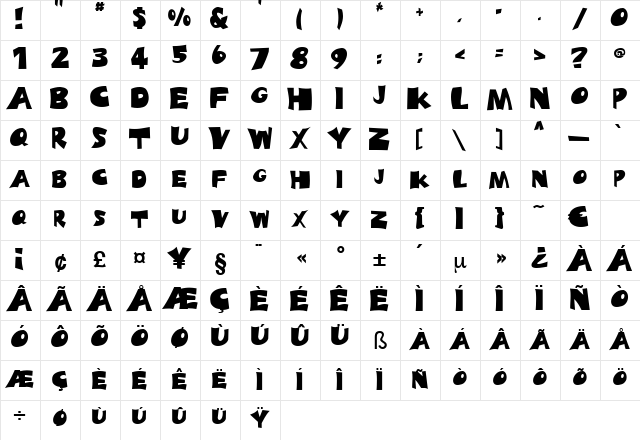
Hattrick Regular
Design Context for Hattrick Typeface
Hattrick is a composed and adaptable typeface that performs quietly and consistently across a wide range of design contexts.